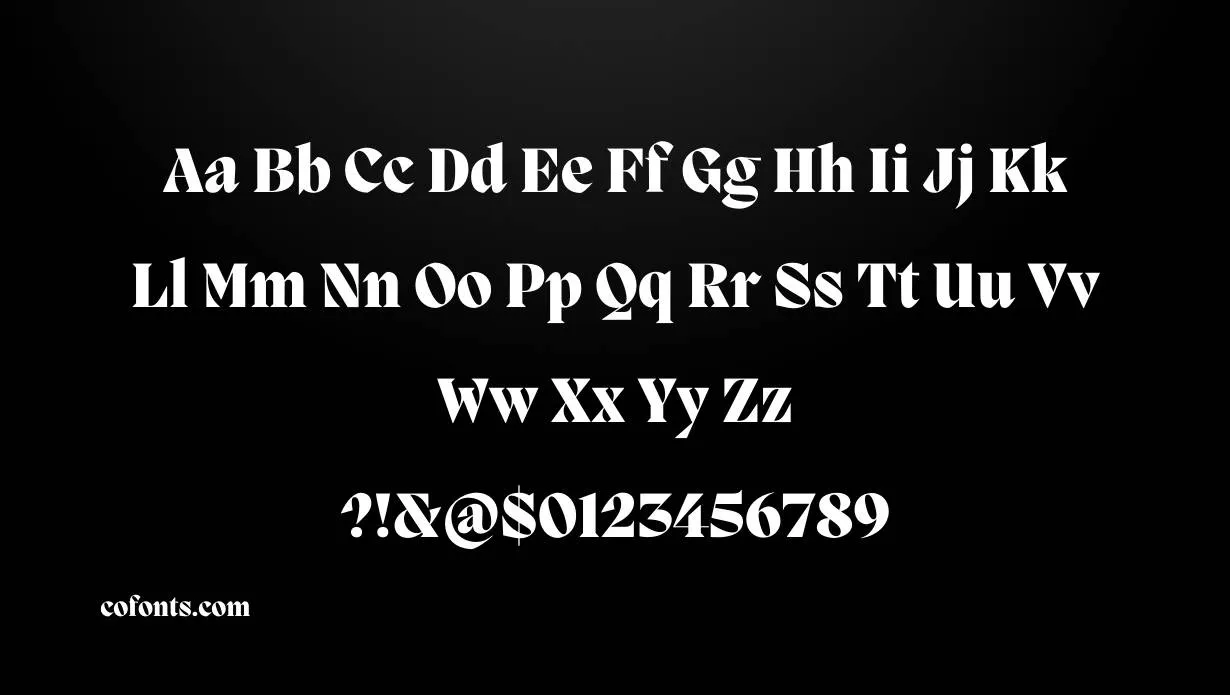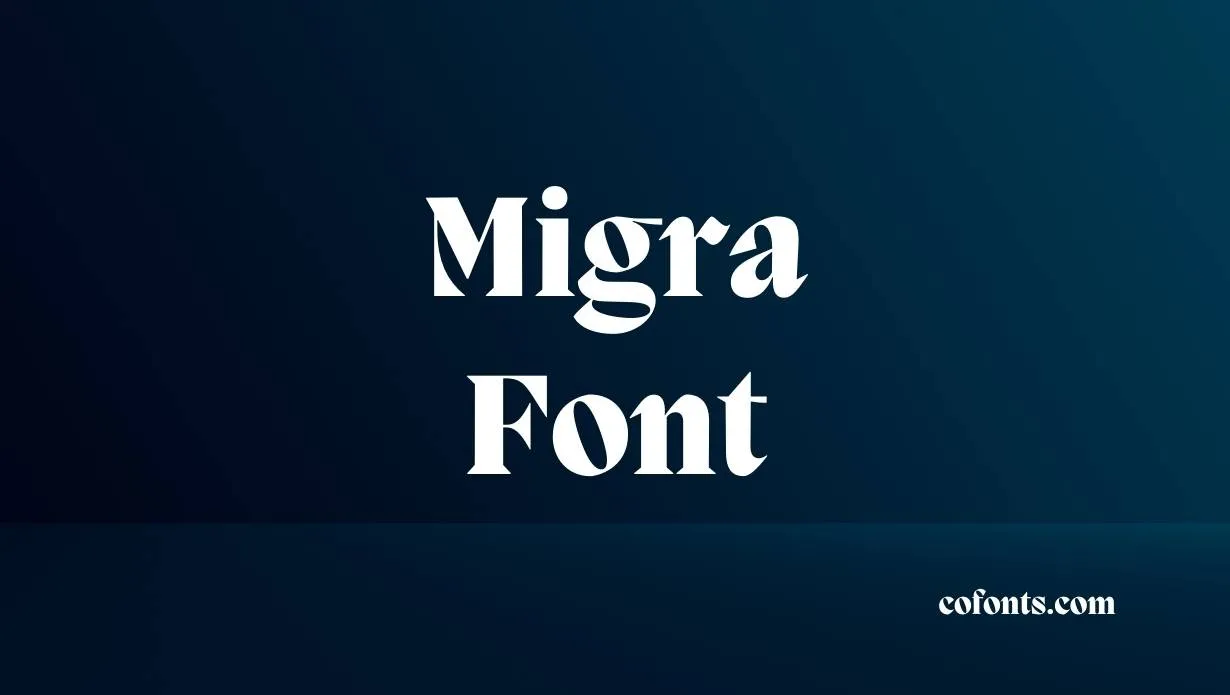
In this post, we introduce Migra Font which belongs to the serif family. This typeface was designed and shared by Valerio Monopoli. You can use this font for both personal and commercial purposes. It is a perfect choice for book covers, logos, headlines, and posters.
Migra Typeface features, it has 6 different styles. A wide character set and Support for multiple languages. This awesome typeface has different classic styles and glyphs. You can create a classic look for your project with this font. For more advanced uses, you need to use americana font by making a combination with this family. You can also use its copy-and-paste function. It is available in uppercase, lowercase, and Cyrillic characters.
It features high contrast between thick and thin strokes, and its overall letterforms are slightly condensed. This typeface will allow you to use its generator tool for different types of graphic design projects.
Usage of Migra Font
You can use this font for various purposes such as wedding invitations, business cards, website headers, etc. Many professional designers used this family for their projects. You can use this font for both personal and commercial purposes. If someone wants to achieve success in all of his projects then use united serif font by making a strong pairing with this typeface.
Many web developers use this font for their projects. You can use this font for both personal and commercial purposes. This font is perfect for book covers, logos, and other design projects that require vintage or antique feel.
What is the type of Migra Font?
This font is a serif font. Serif fonts have small lines at the ends of their letters, which can help to make
Can I use Migra Font for my Logos designs?
Yes, you can use Migra Typeface for your logos, website headers, and many other design projects.